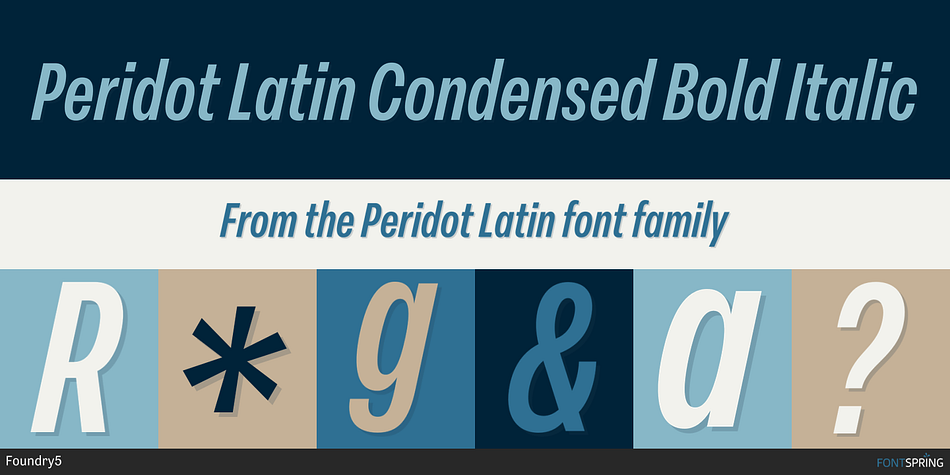
Peridot Latin Condensed Bold Italic
Designed by Pria Ravichandran and Kostas Bartsokas, Peridot Latin is a sans serif font family. This typeface has one hundred and twenty-seven styles and was published by Foundry5.
Peridot is not just another typeface – it’s a multifaceted sans serif type system crafted with passion and precision by Foundry5. Painstakingly developed through long hours and a keen focus on every minute detail, this typeface boasts a high-quality 10 weight family with matching italics in 6 widths, and the highly versatile variable format. Brimming with character, Peridot invites you to experiment with its various stylistic variants, allowing you to tailor the typographic tone to fit your creative vision perfectly. The diverse range of widths and styles in Peridot offers a dynamic typographic toolbox, ready to inspire and captivate even the most innovative designers.
Peridot Latin covers over 320 languages, including Vietnamese. It includes all required localised variants, tabular numerals and currencies, fractions, clever discretionary ligatures and many more features. Peridot performs in varied environments – from branding, display, corporate use,  editorial, advertising, poster, web, screen usage etc. Think of any other use case as well, and Peridot will perform.